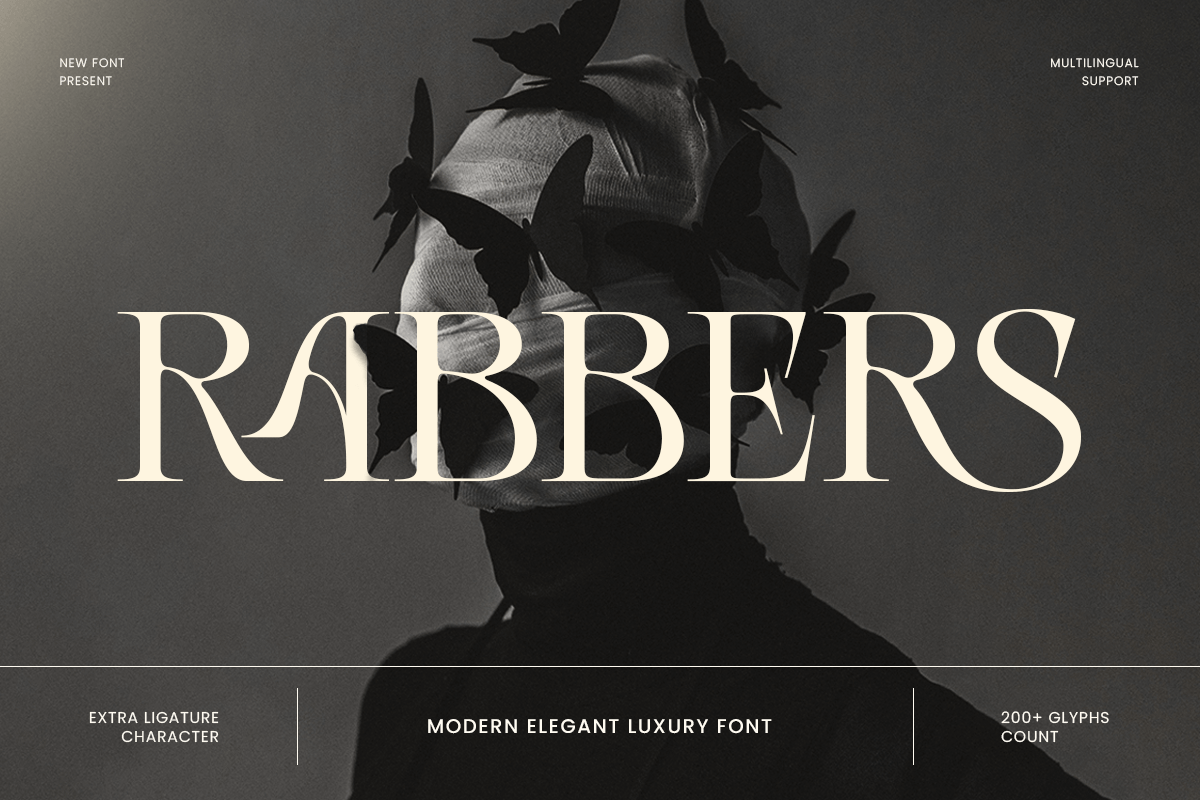
Rabbers
-Modern Elegant Classy FontRabbers - Modern Elegant Classy Font
RABBERS is a modern elegant luxury font crafted to deliver a polished, high-end impression with timeless sophistication. Designed with refined details and a confident modern structure, this typeface brings an upscale tone that feels premium, clean, and unmistakably stylish.
Perfect for luxury-forward branding, RABBERS elevates logos, wordmarks, packaging, labels, website headers, magazine spreads, invitations, and social media campaigns. Its elegant presence balances readability with prestige, making it ideal for both bold headlines and signature brand statements.
Whether you’re building a fashion identity, beauty brand, premium product packaging, or an editorial layout with luxury flair, RABBERS provides a modern luxury foundation that makes every design feel exclusive and professionally crafted.
Inspiration Behind RABBERS
RABBERS is inspired by contemporary luxury typography and editorial fashion aesthetics—where refined structure, elegant rhythm, and subtle sophistication define the brand. The design focuses on modern elegance and premium visual balance to support high-end identities, upscale packaging, and classy promotional design.
RABBERS Font Features:
Modern luxury letterforms with elegant, refined styling
Ideal for premium branding, high-end logos, and upscale packaging
Strong readability for headlines, editorials, and brand statements
OpenType features for polished, professional typesetting
Luxury logos, wordmarks, and premium brand identity systems
Fashion, beauty, skincare, perfume, and boutique branding
Editorial layouts, magazine covers, lookbooks, and headlines
Premium packaging, labels, invitations, and event stationery
Social media campaigns, websites, ads, and marketing assets